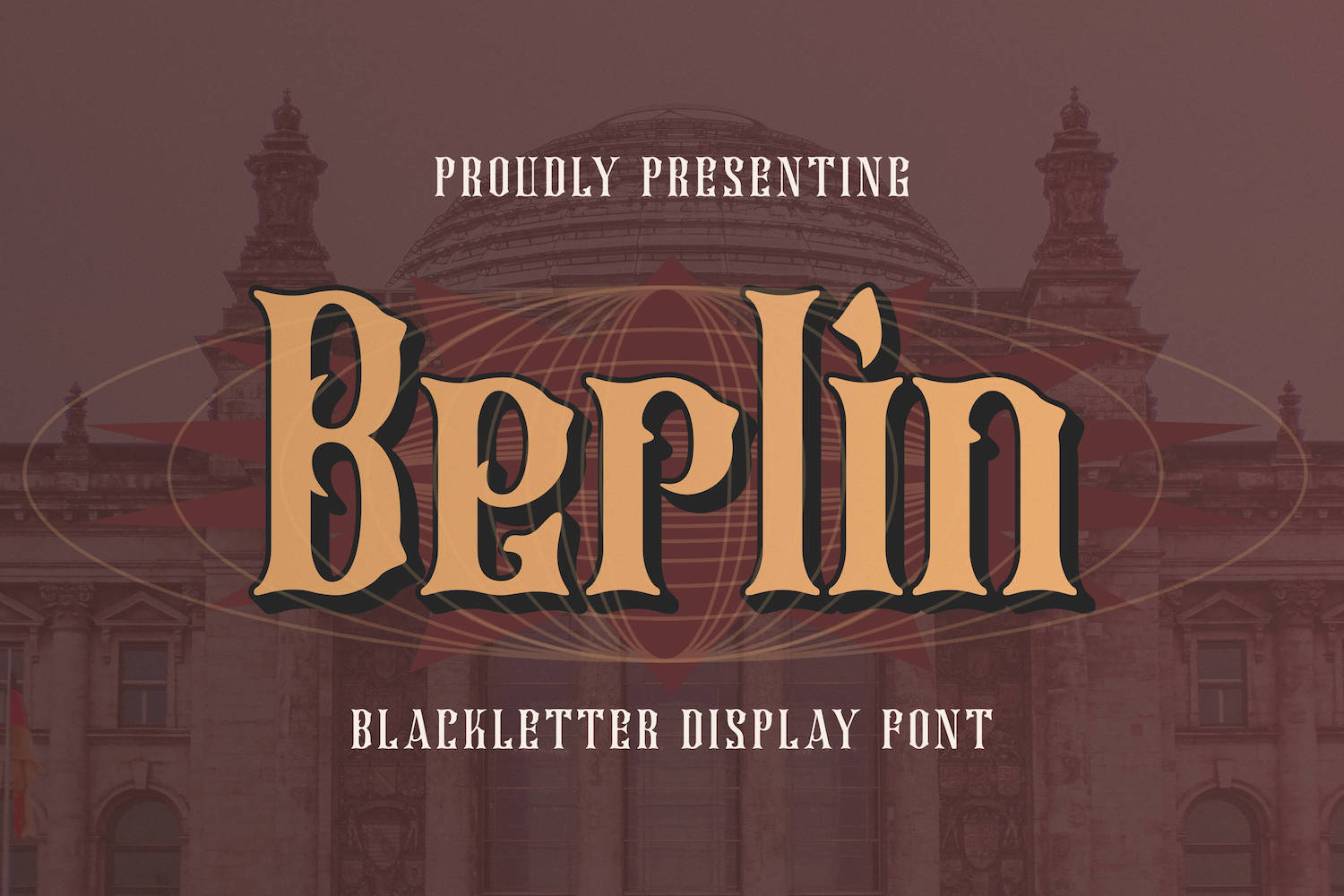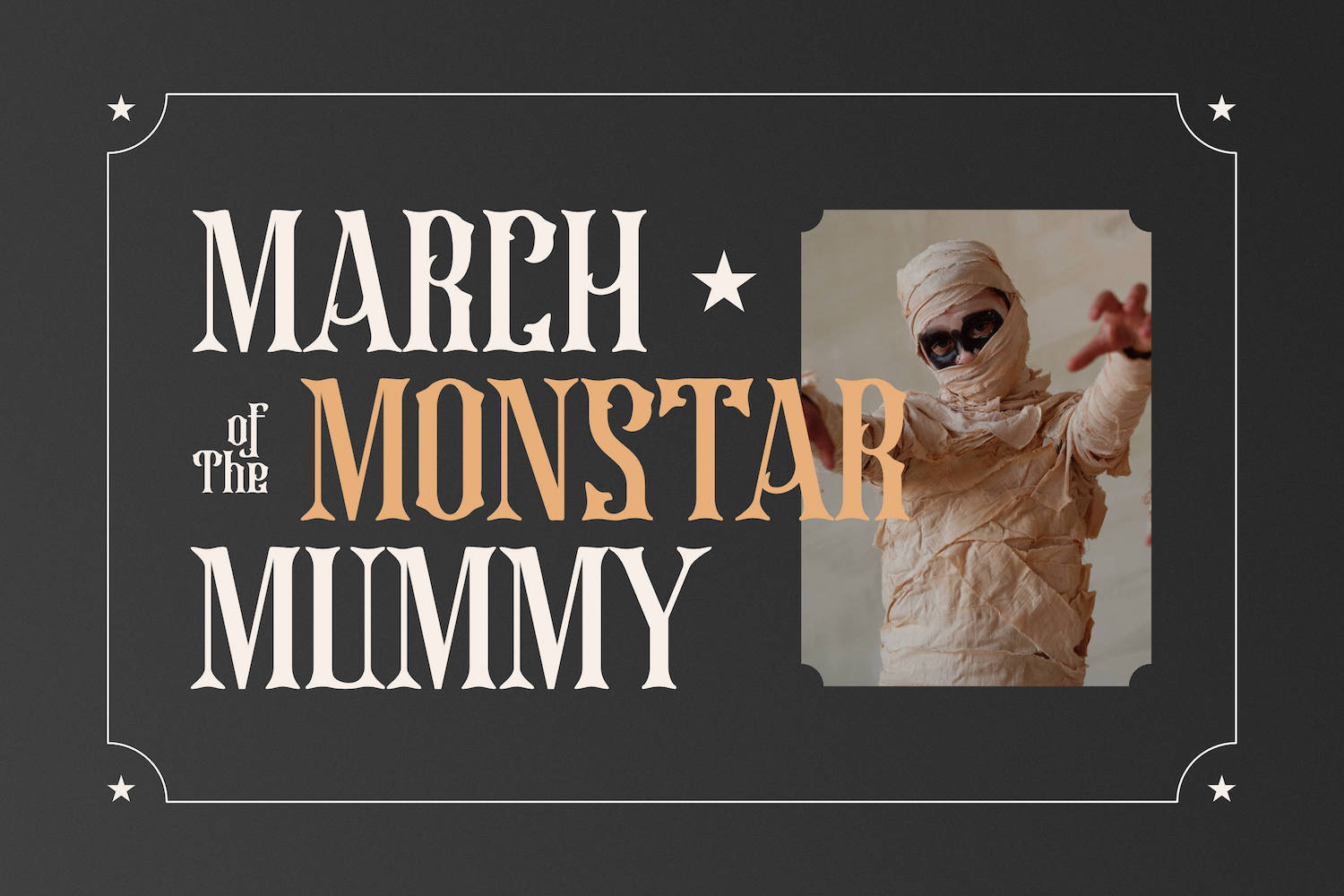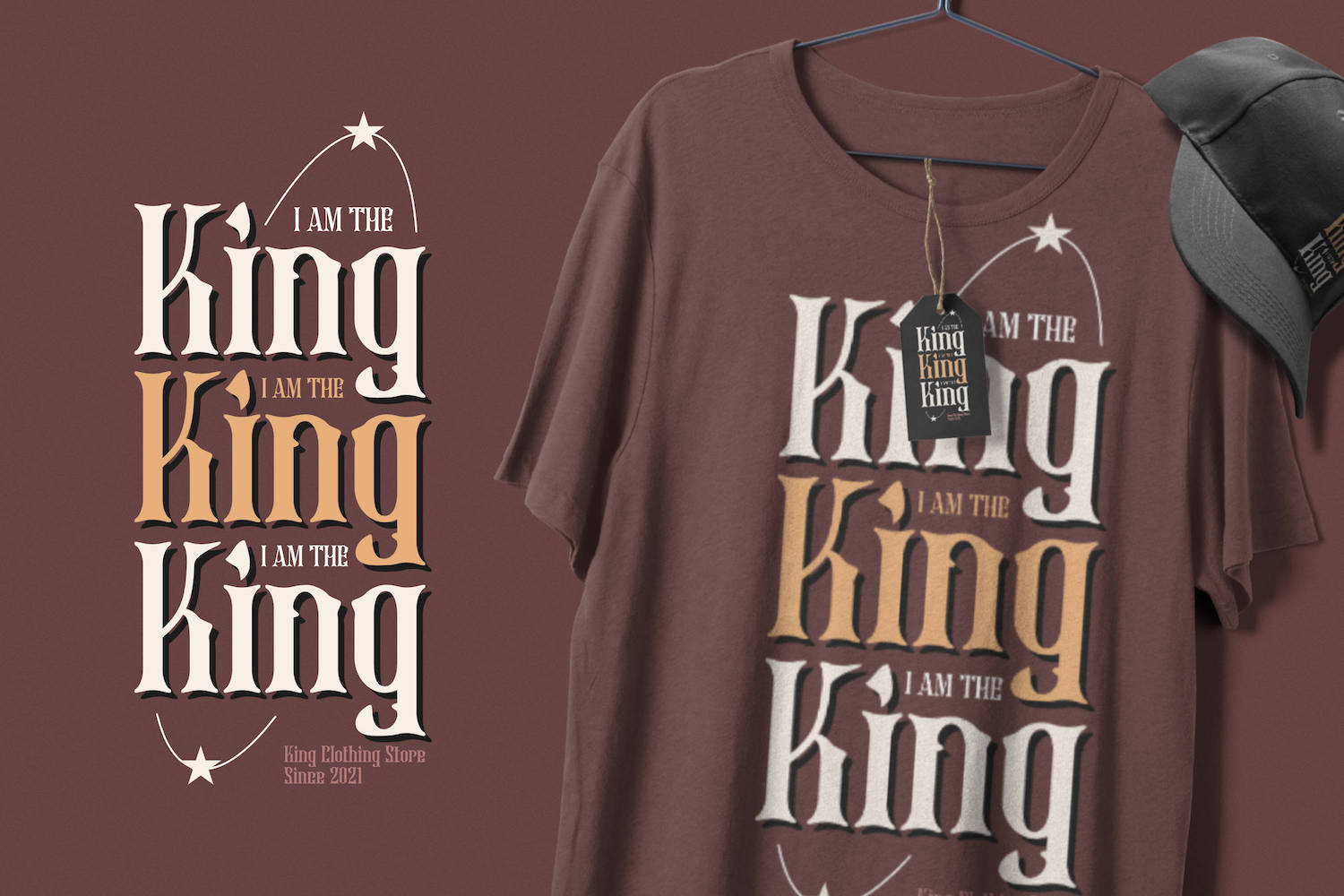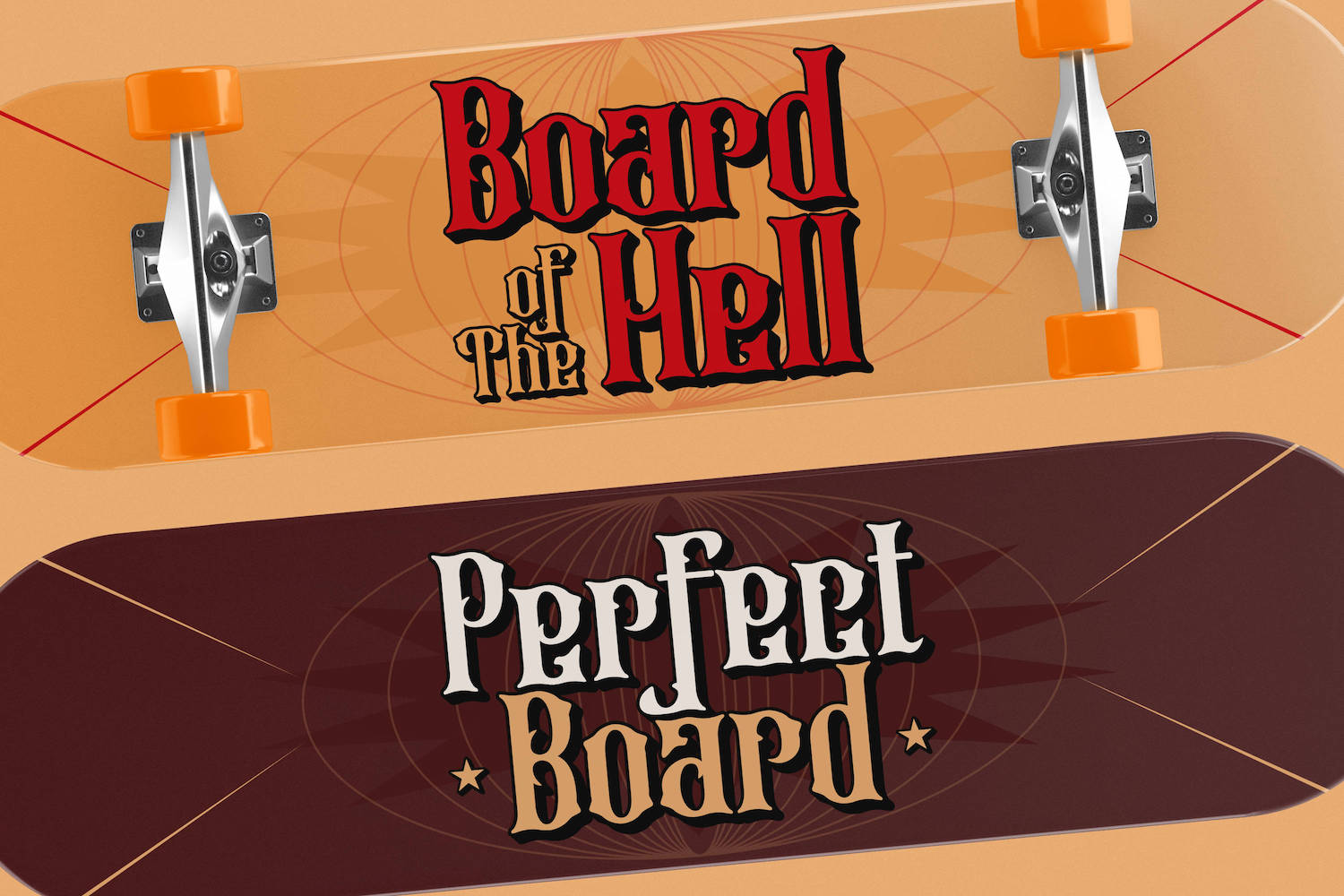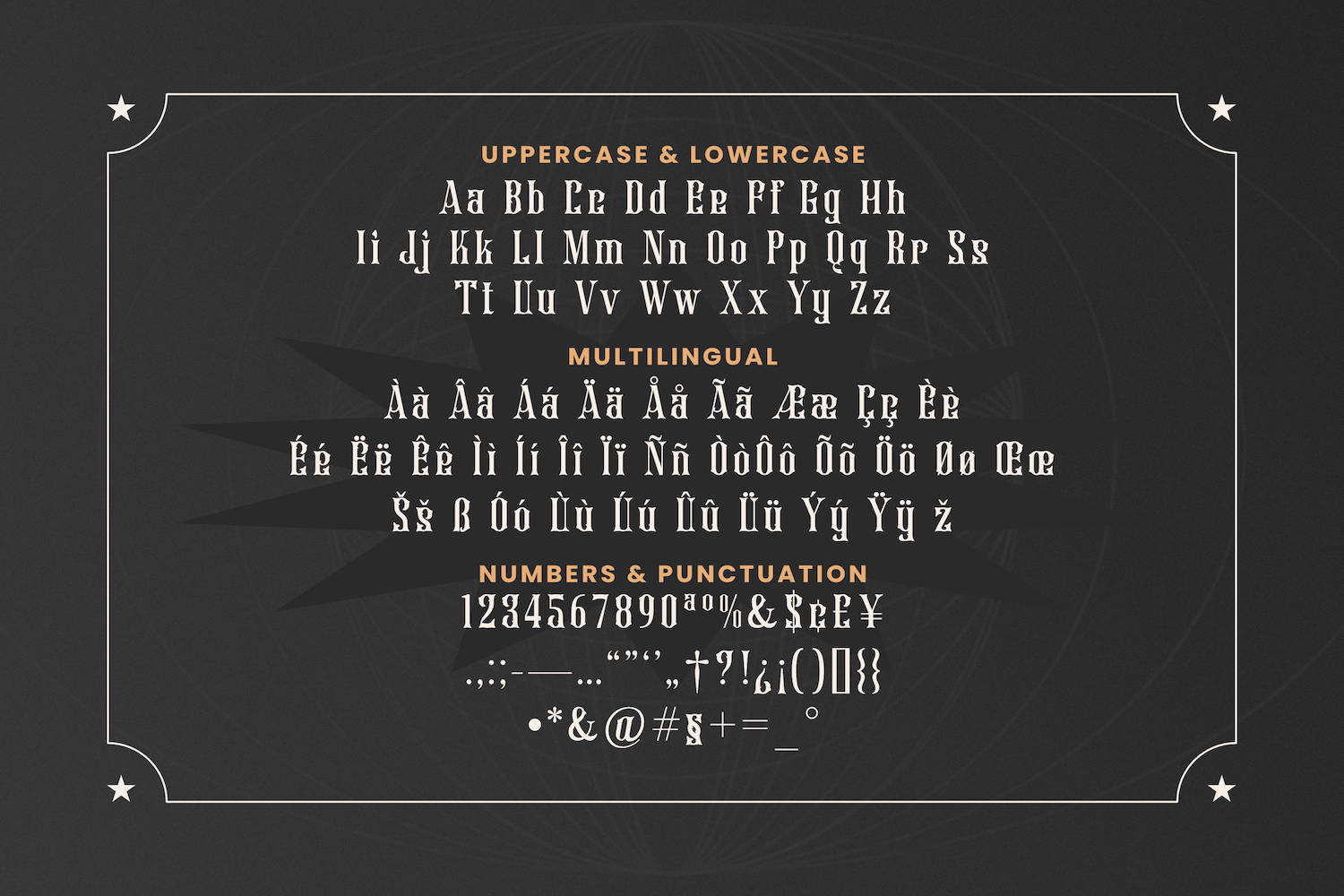
Berlin is a bold and captivating blackletter display font inspired by gothic calligraphy and vintage type. With its sharp edges, dramatic curves, and high contrast strokes, this font brings a strong and rebellious personality to your design. It’s the perfect choice for posters, music artwork, skateboarding gear, apparel branding, and Halloween-themed projects.
This typeface supports multilingual characters and offers uppercase, lowercase, numbers, and punctuation. Whether you’re aiming for a medieval, rock, or street-style vibe, Berlin delivers a striking and authoritative look that won’t go unnoticed.
Berlin